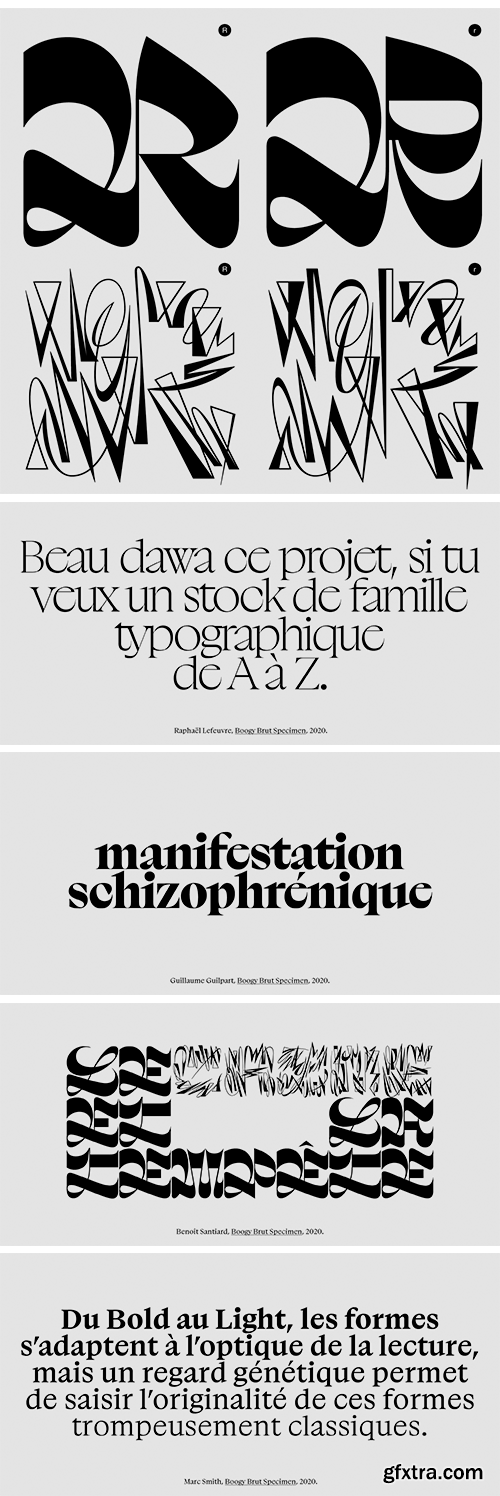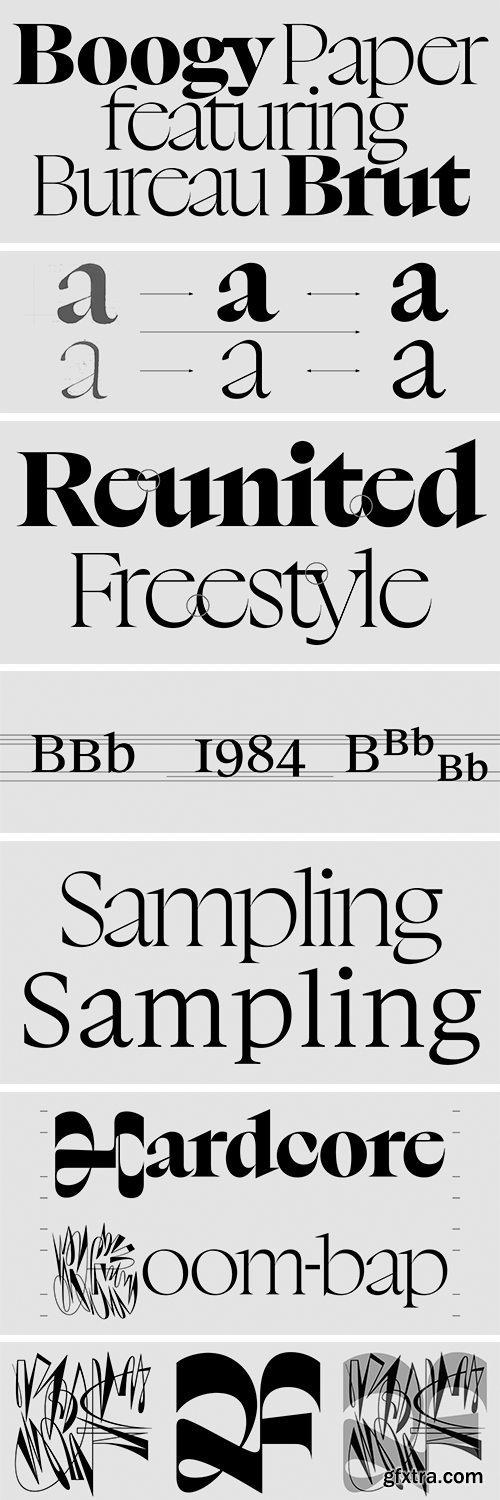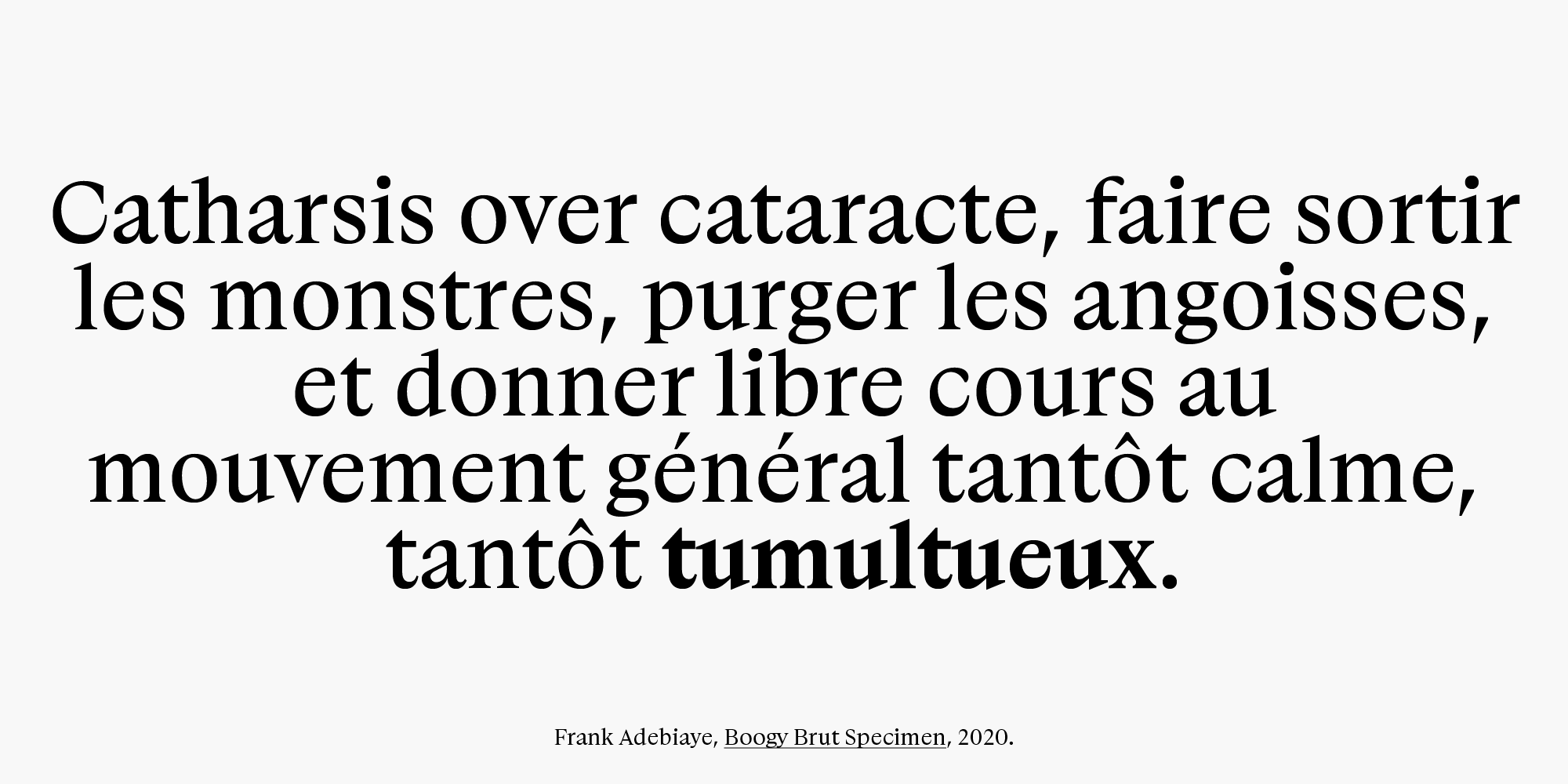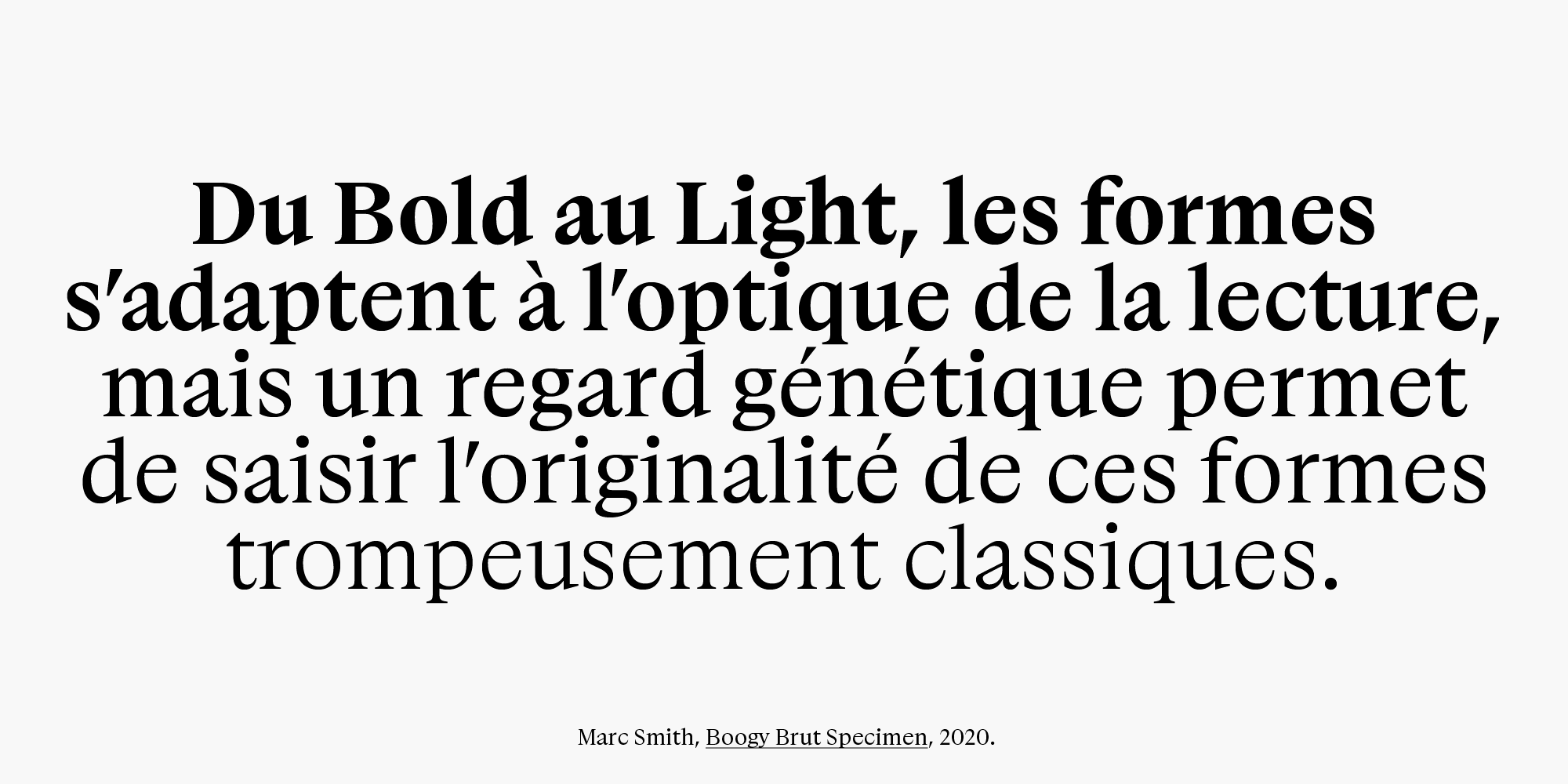
Boogy Brut Font
Boogy Brut Font - The boogy brut family offers a wide spectrum of uses, from drop caps to poster type to text sizes. Comes in 5 (roman) weights from light to bold. Boogy brut is a serif typeface designed by bureau brut in collaboration with calligrapher julien priez (known as boogy. Accompanied by boogy brut poster (2. Designed by bureau brut & julien priez (boogy paper) released in 2020.
Boogy brut is a serif typeface designed by bureau brut in collaboration with calligrapher julien priez (known as boogy. Comes in 5 (roman) weights from light to bold. Accompanied by boogy brut poster (2. The boogy brut family offers a wide spectrum of uses, from drop caps to poster type to text sizes. Designed by bureau brut & julien priez (boogy paper) released in 2020.
The boogy brut family offers a wide spectrum of uses, from drop caps to poster type to text sizes. Accompanied by boogy brut poster (2. Comes in 5 (roman) weights from light to bold. Boogy brut is a serif typeface designed by bureau brut in collaboration with calligrapher julien priez (known as boogy. Designed by bureau brut & julien priez (boogy paper) released in 2020.
Boogy Brut Bureau Brut
The boogy brut family offers a wide spectrum of uses, from drop caps to poster type to text sizes. Comes in 5 (roman) weights from light to bold. Designed by bureau brut & julien priez (boogy paper) released in 2020. Boogy brut is a serif typeface designed by bureau brut in collaboration with calligrapher julien priez (known as boogy. Accompanied.
Comes in 5 (roman) weights from light to bold. Accompanied by boogy brut poster (2. Designed by bureau brut & julien priez (boogy paper) released in 2020. The boogy brut family offers a wide spectrum of uses, from drop caps to poster type to text sizes. Boogy brut is a serif typeface designed by bureau brut in collaboration with calligrapher.
Comes in 5 (roman) weights from light to bold. Designed by bureau brut & julien priez (boogy paper) released in 2020. The boogy brut family offers a wide spectrum of uses, from drop caps to poster type to text sizes. Boogy brut is a serif typeface designed by bureau brut in collaboration with calligrapher julien priez (known as boogy. Accompanied.
Designed by bureau brut & julien priez (boogy paper) released in 2020. The boogy brut family offers a wide spectrum of uses, from drop caps to poster type to text sizes. Comes in 5 (roman) weights from light to bold. Boogy brut is a serif typeface designed by bureau brut in collaboration with calligrapher julien priez (known as boogy. Accompanied.
Boogy Brut Bureau Brut
Boogy brut is a serif typeface designed by bureau brut in collaboration with calligrapher julien priez (known as boogy. The boogy brut family offers a wide spectrum of uses, from drop caps to poster type to text sizes. Comes in 5 (roman) weights from light to bold. Accompanied by boogy brut poster (2. Designed by bureau brut & julien priez.
Boogy Brut Font
Accompanied by boogy brut poster (2. The boogy brut family offers a wide spectrum of uses, from drop caps to poster type to text sizes. Boogy brut is a serif typeface designed by bureau brut in collaboration with calligrapher julien priez (known as boogy. Comes in 5 (roman) weights from light to bold. Designed by bureau brut & julien priez.
Boogy Brut Bureau Brut
Designed by bureau brut & julien priez (boogy paper) released in 2020. Boogy brut is a serif typeface designed by bureau brut in collaboration with calligrapher julien priez (known as boogy. Accompanied by boogy brut poster (2. Comes in 5 (roman) weights from light to bold. The boogy brut family offers a wide spectrum of uses, from drop caps to.
Boogy Brut Font
Comes in 5 (roman) weights from light to bold. Designed by bureau brut & julien priez (boogy paper) released in 2020. Accompanied by boogy brut poster (2. Boogy brut is a serif typeface designed by bureau brut in collaboration with calligrapher julien priez (known as boogy. The boogy brut family offers a wide spectrum of uses, from drop caps to.
Boogy Brut Bureau Brut Text set, Writing tools, Drop cap
Accompanied by boogy brut poster (2. Boogy brut is a serif typeface designed by bureau brut in collaboration with calligrapher julien priez (known as boogy. Comes in 5 (roman) weights from light to bold. The boogy brut family offers a wide spectrum of uses, from drop caps to poster type to text sizes. Designed by bureau brut & julien priez.
Boogy Brut Bureau Brut
Designed by bureau brut & julien priez (boogy paper) released in 2020. Comes in 5 (roman) weights from light to bold. Accompanied by boogy brut poster (2. Boogy brut is a serif typeface designed by bureau brut in collaboration with calligrapher julien priez (known as boogy. The boogy brut family offers a wide spectrum of uses, from drop caps to.
Accompanied By Boogy Brut Poster (2.
Comes in 5 (roman) weights from light to bold. The boogy brut family offers a wide spectrum of uses, from drop caps to poster type to text sizes. Boogy brut is a serif typeface designed by bureau brut in collaboration with calligrapher julien priez (known as boogy. Designed by bureau brut & julien priez (boogy paper) released in 2020.